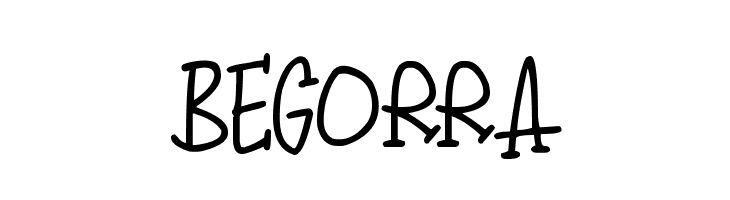
• Alien Android Italic
( Darrell Flood )
A bold, italicized font with a futuristic and angular design.
• Alien Planet
( Darrell Flood )
A bold, futuristic font with geometric shapes and sharp angles.
• Alien Wars
( Darrell Flood )
A bold, geometric font with sharp angles and a futuristic style.
• Alien Wars Italic
( Darrell Flood )
A bold, futuristic italic font with sharp angles and tight spacing.
• Android y
( Darrell Flood )
A bold, geometric font with a futuristic and digital style.
• Angry Android
( Darrell Flood )
A bold, geometric font with a futuristic, robotic style.
• Angry Android Italic
( Darrell Flood )
A bold, angular, and italicized font with a futuristic and aggressive design.
• Baby Blues
( Darrell Flood )
A modern, tall, and narrow sans-serif font with consistent stroke width.
• Baby Blues Italic
( Darrell Flood )
A modern, italic font with a sleek, dynamic style.
• Begorra
( Darrell Flood )
A playful, hand-drawn font with bold strokes and a whimsical style.